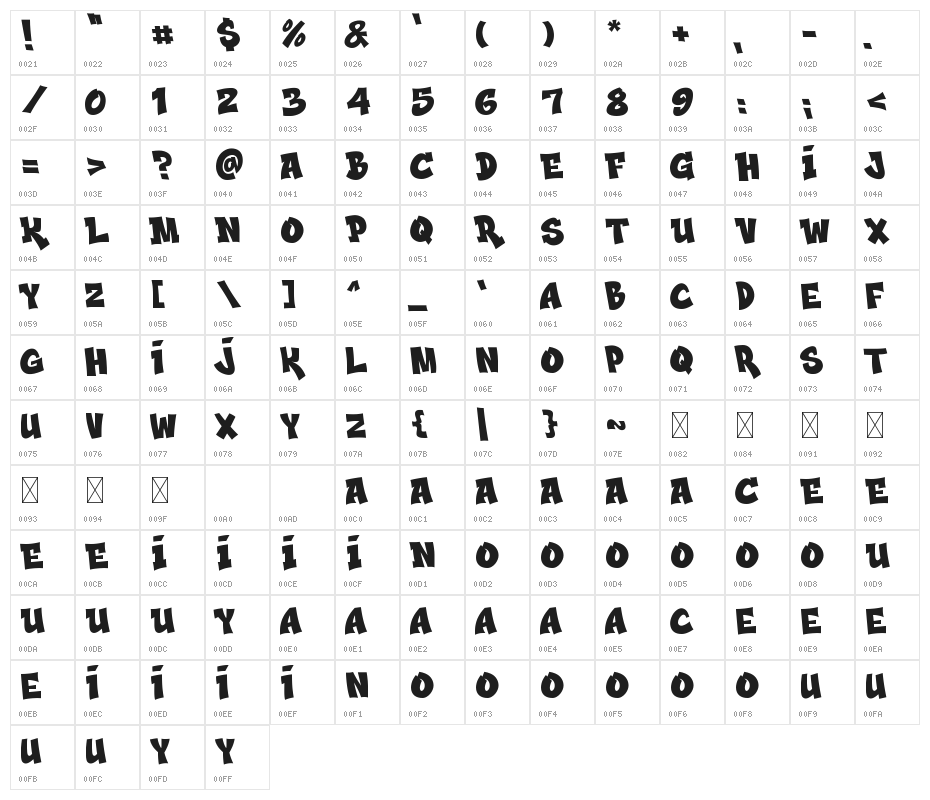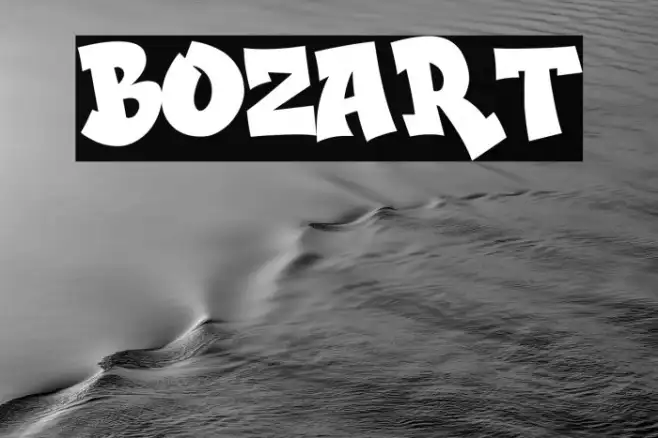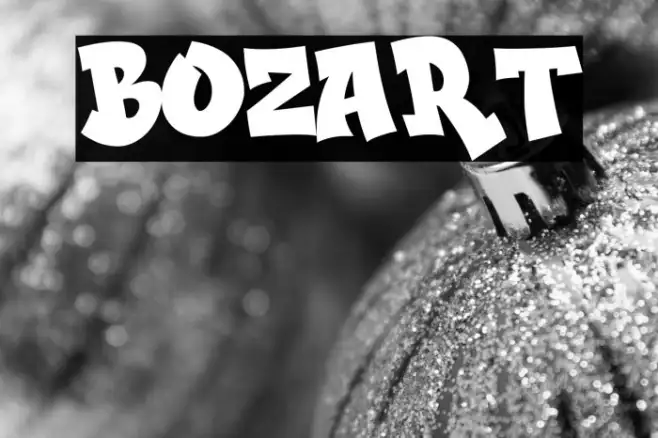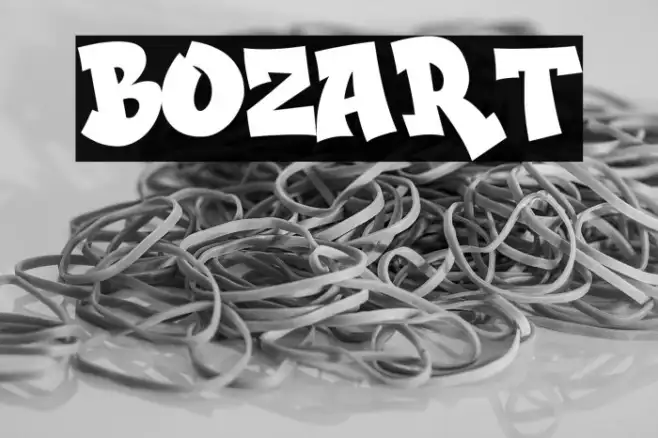
BOZART Font
BOZART Description
This font features a bold and playful design with exaggerated, uneven strokes that give it a dynamic and energetic appearance. The characters are heavily stylized, with a cartoonish flair that makes them stand out. The uppercase and lowercase letters maintain a consistent style, with a slight slant and varying thickness in the strokes, adding to the whimsical nature. The numbers and special characters follow the same design principles, ensuring a cohesive look across all elements. This font is ideal for projects that require a fun and eye-catching aesthetic.
| Overall Style | Playful, Cartoonish, Energetic |
| Proposed Projects | Ideal for children's books, comic strips, playful branding, and eye-catching posters. |